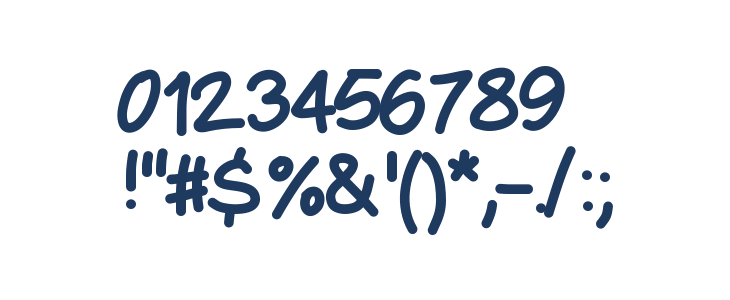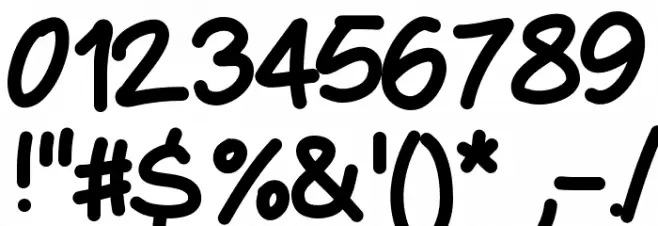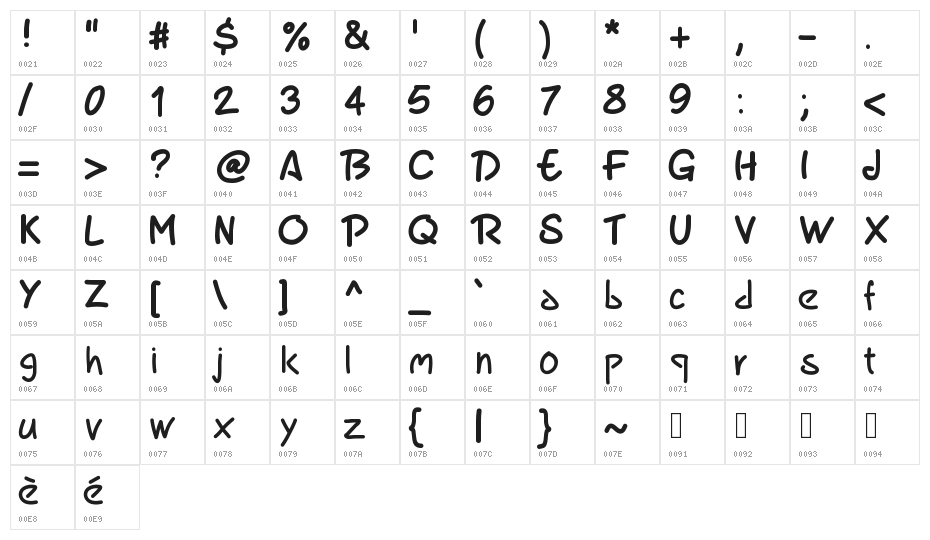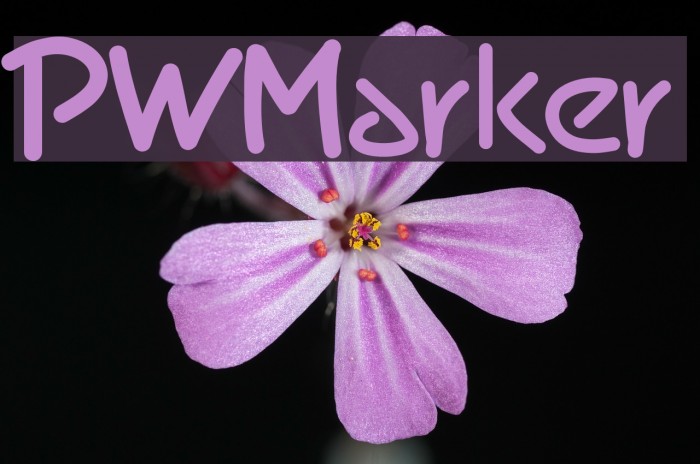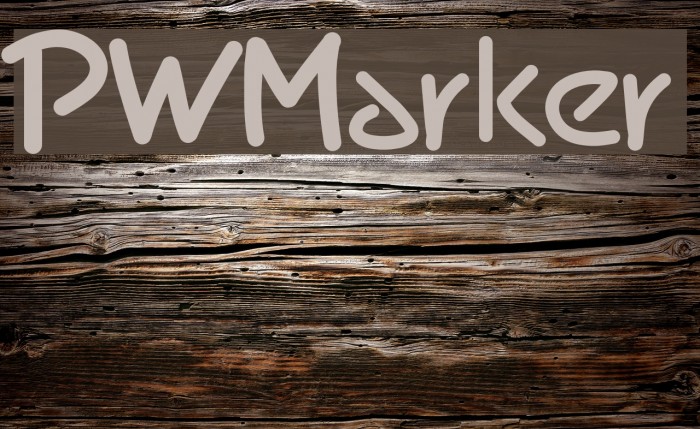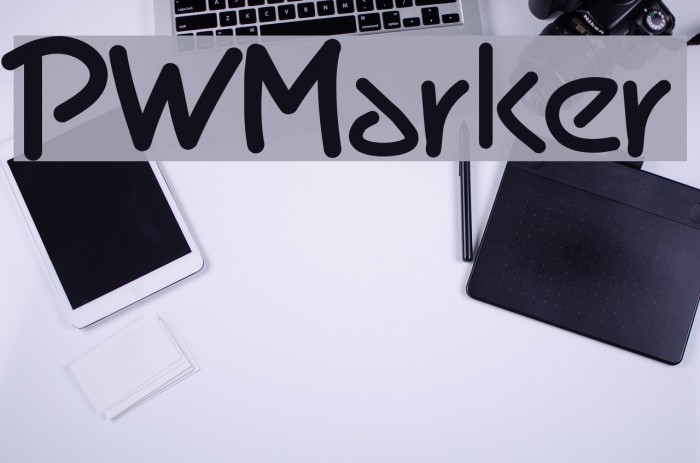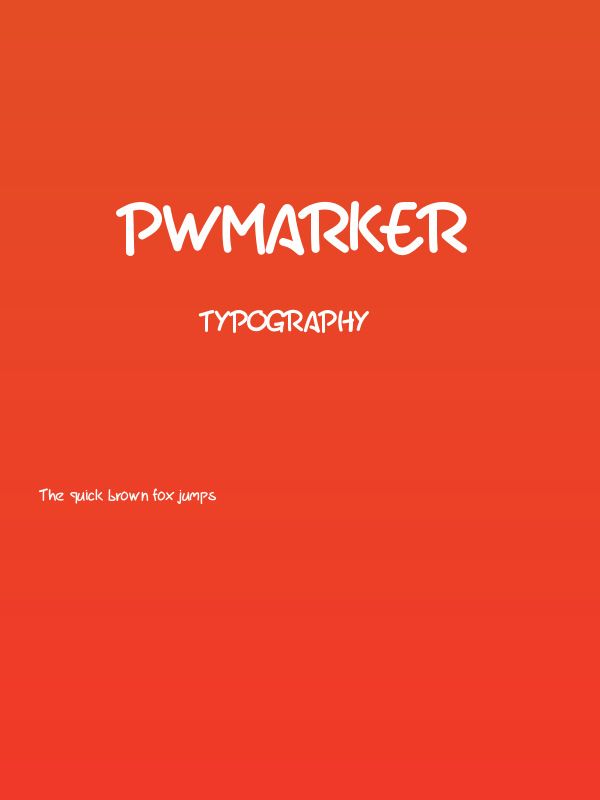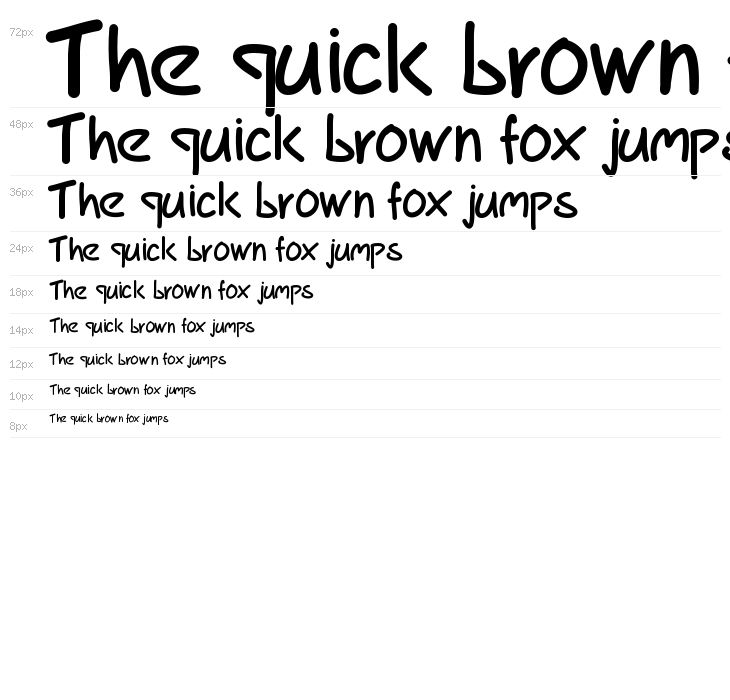
PWMarker Font
PWMarker Description
This font exudes a playful and casual vibe with its handwritten style. The characters are bold and rounded, giving them a friendly and approachable appearance. The strokes are consistent in thickness, providing a uniform look across all letters and numbers. The uppercase and lowercase letters maintain a cohesive style, with slight variations that add to the handwritten charm. The numerals and special characters are equally bold and rounded, ensuring readability and consistency. This font is perfect for projects that require a personal touch or a relaxed, informal feel.